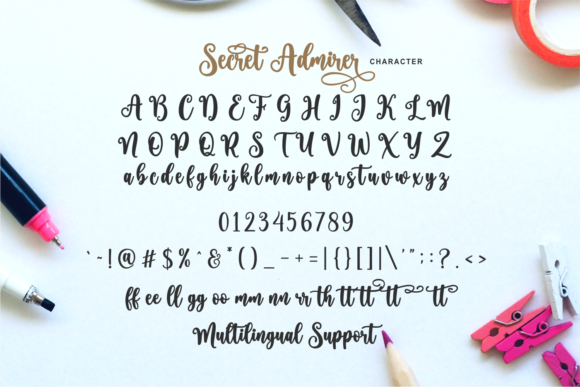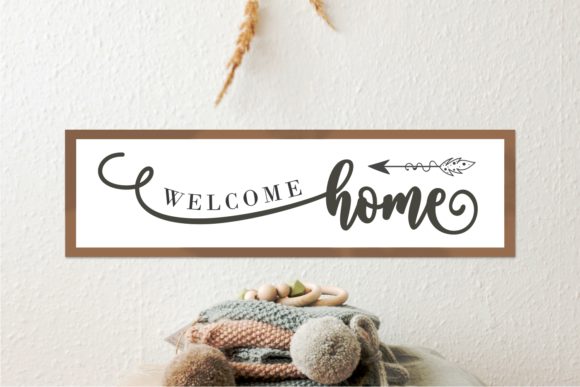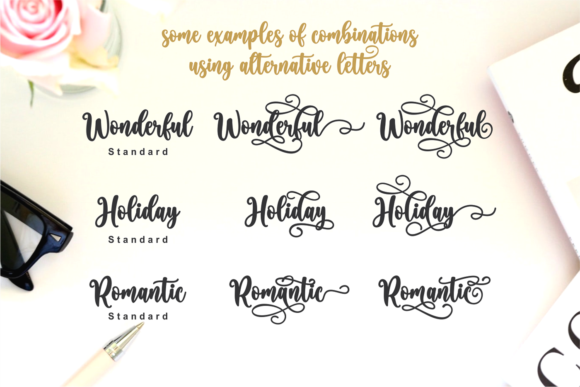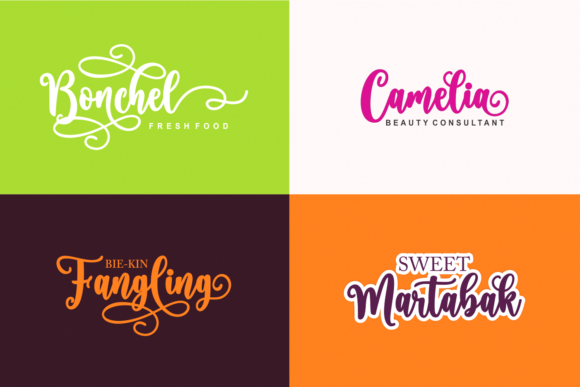
Secret Admirer is an exquisite and flowing handwritten font that adds a touch of elegance to any design. With its beautiful, natural flow, it is particularly well-suited for romantic and sentimental projects. Whether you’re creating wedding invitations, thank you cards, quotes, greeting cards, logos, or business cards, Secret Admirer will infuse your designs with a heartfelt and personal touch.
The fluid and graceful strokes of Secret Admirer capture the essence of handwritten elegance. Each letter is carefully crafted to create a seamless and harmonious flow, giving your designs a sophisticated and romantic look. The font’s delicate curves and intricate details make it a perfect choice for projects that require a touch of refinement and grace.
Secret Admirer is particularly well-suited for wedding-related designs. Its romantic and sentimental feel adds a sense of intimacy and charm to wedding invitations, where it can beautifully convey the emotions of the special day. Similarly, it can enhance thank you cards, adding a personal and heartfelt touch to express gratitude.
Quotes and greeting cards also benefit from Secret Admirer’s flowing and elegant style. The font lends a touch of warmth and sincerity to these designs, making them visually appealing and emotionally engaging. Logos and business cards designed with Secret Admirer can create a lasting impression, showcasing a sense of refinement and personal connection.
In addition, Secret Admirer is PUA encoded, which means you can easily access all of the available glyphs and swashes. This allows for greater customization and versatility in your designs, enabling you to create unique and personalized compositions.
Overall, Secret Admirer is a beautiful and flowing handwritten font that brings an element of elegance and romance to your designs. Its versatility makes it suitable for a wide range of applications, including wedding invitations, thank you cards, quotes, greeting cards, logos, and business cards. Embrace the heartfelt and personal touch of Secret Admirer to create stunning designs that captivate and enchant your audience.